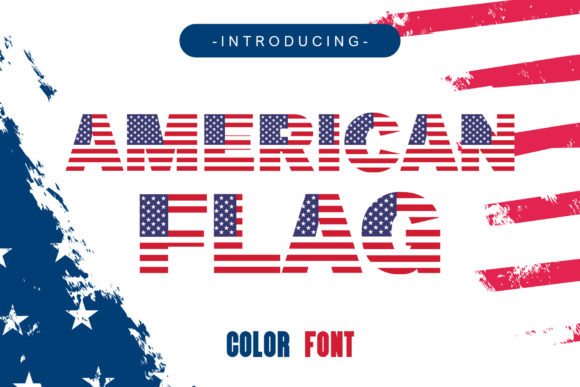
Embark on a typographic journey like no other with American Flag Font, the captivating color font that transforms your designs into vibrant masterpieces. Immerse yourself in a symphony of colors, where each letter dances across the screen, leaving a trail of visual enchantment.
American Flag Font is more than just a collection of characters; it's an artistic expression that breathes life into your words. Unleash your creativity and watch as ordinary text metamorphosizes into extraordinary art.
With American Flag Font, you'll discover a world of possibilities. Craft eye-catching magazine titles that leap off the page, demanding attention. Create social media posts that sizzle with personality, captivating your audience with every scroll. Design logos that burst with vibrancy, leaving a lasting impression on your customers.
This remarkable font is a versatile chameleon, seamlessly adapting to any project you throw its way. Whether you're a seasoned designer or just starting your creative journey, American Flag Font is your trusted companion, ready to elevate your work to new heights.
Harness the power of color and typography, and let American Flag Font be your muse. Transform your designs into captivating spectacles, leaving your audience spellbound. Embrace the boldness, embrace the beauty, embrace American Flag Font.